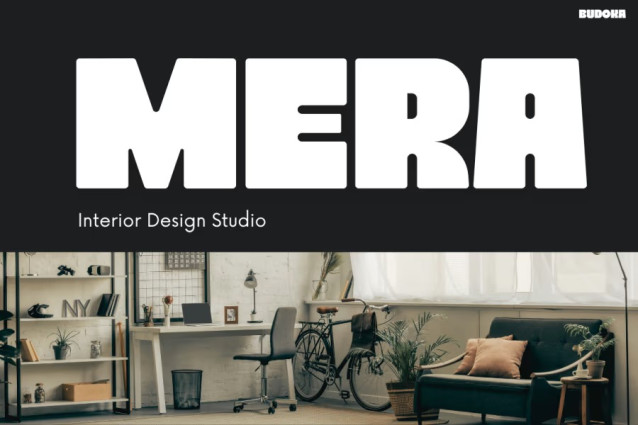
Budoka Font
Budoka Font is a bold and modern display font designed to grab attention instantly. The shapes are thick, geometric, and clean, which makes the font feel powerful yet friendly. Its structure is simple, but the visual impact is strong. Because of that, the font works well in many design situations.
BUDOKA looks unique thanks to its heavy strokes and compact spacing. The characters feel energetic and confident. They also create a solid visual rhythm that strengthens every layout. In the preview images, the font turns words like “MERA,” “URBAN STD,” and “rouge studio” into strong focal points. Each design becomes more memorable and stylish.
Instagram Font BUDOKA also supports excellent readability at large sizes. It stands out on posters, banners, storefront signs, Instagram posts, and promotional layouts. The bold shapes help messages appear clearer and more direct. Even simple text looks clean and professional. Because of this, the font becomes a strong choice for modern graphic work.
Who This Instagram Font BUDOKA Is Perfect For
Instagram Font BUDOKA is an ideal option for designers who want bold visual identity. Graphic designers, branding specialists, and digital marketers can use it for high-impact layouts. It also works well for creative studios, architecture brands, interior design ads, and lifestyle campaigns.
Furthermore, content creators on Instagram, TikTok, and Pinterest can use the font to strengthen their visuals. It helps thumbnails, cover slides, and promotional posts look sharper and more stylish. Business owners can also benefit from its modern feel. The font supports logos, product packaging, sale banners, and online ads with ease.
If you need a font that looks confident, clean, and highly modern, BUDOKA is the right choice.